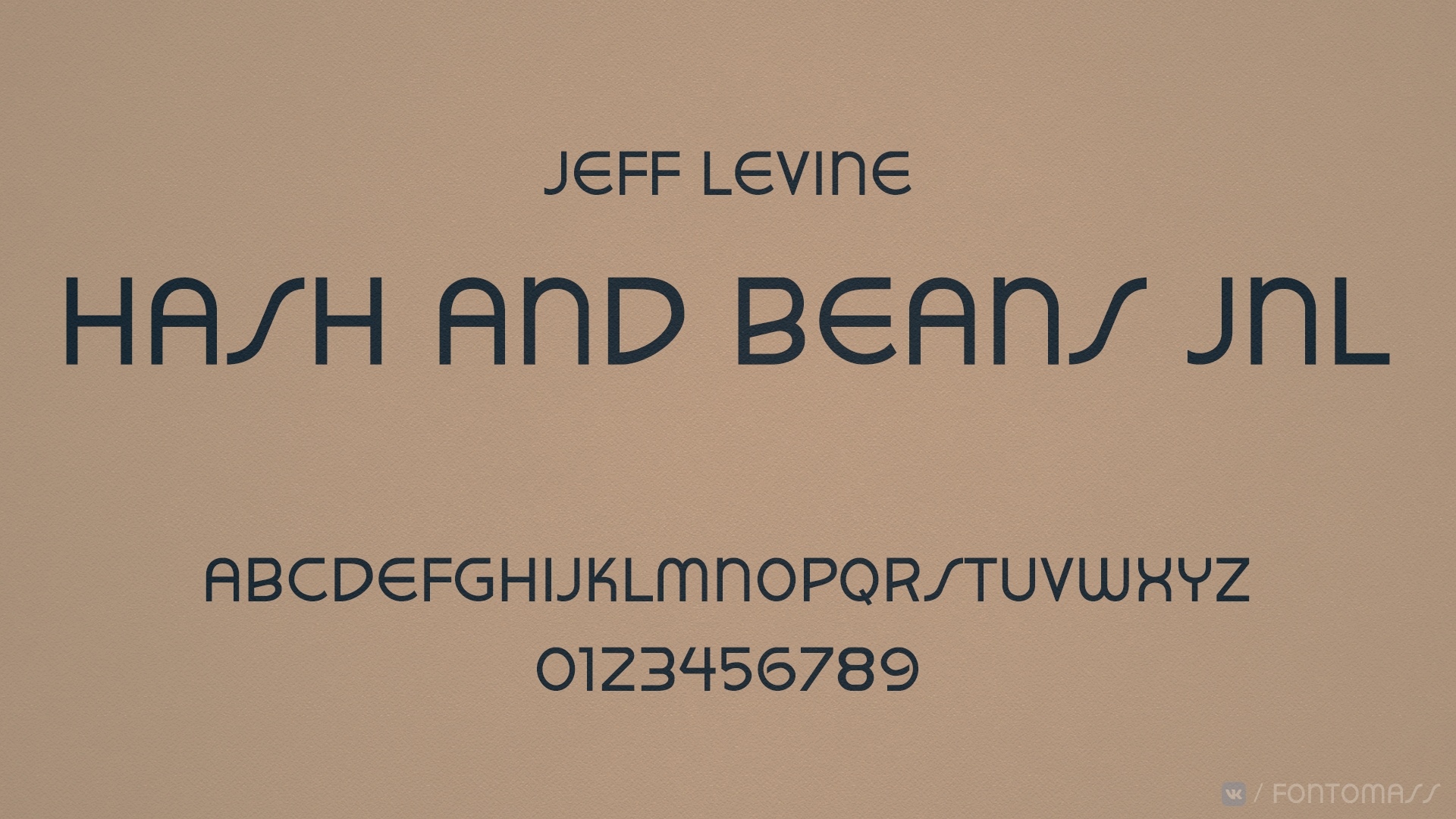
Hash And Beans JNL Font
Sitting in a diner and looking upon a wall full of nostalgia, there hangs a picture of another older diner in some Northern city. The lettering from it's rooftop sign almost screams "Make a font out of this!"... so Jeff Levine did... "Hash and Beans JNL".